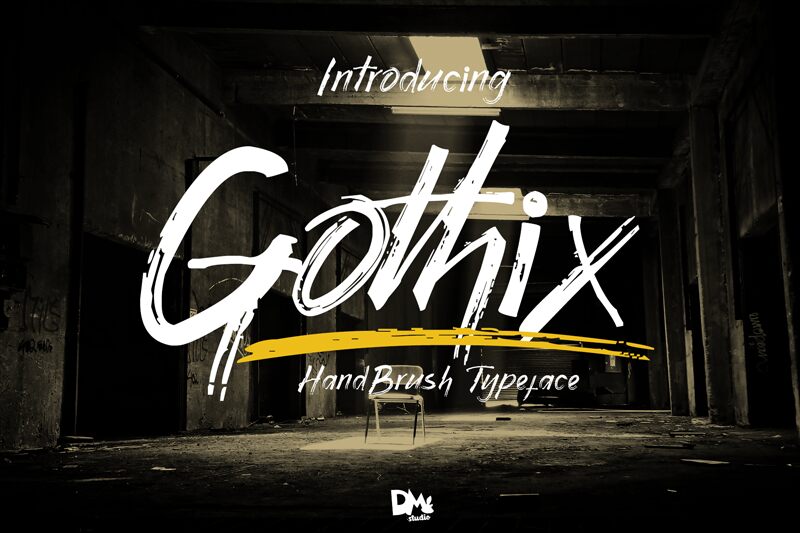
Gothix
Gothix, a mesmerizing brush font crafted by Dm Letter Studio - Dimas Prasetyo, adds a touch of artistic elegance to any project. Its semi-light weight effortlessly blends modernity with sophistication, making it perfect for captivating headlines, striking logos, and stylish packaging designs. This versatile font type is ideal for projects that require a contemporary yet refined aesthetic. Whether you're creating eye-catching social media graphics or designing captivating book covers, Gothix will effortlessly elevate your work to new heights. Let this brush font unleash your creativity and leave a lasting impression on your audience.